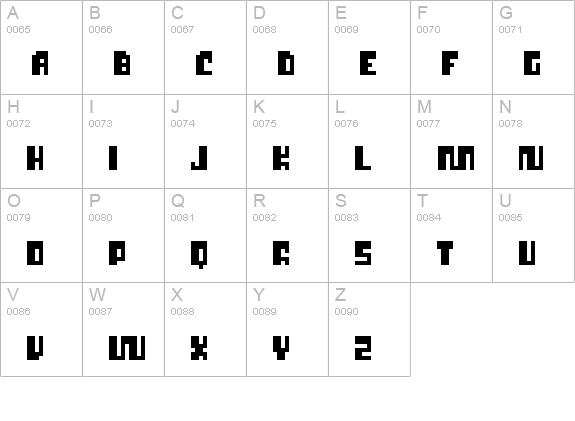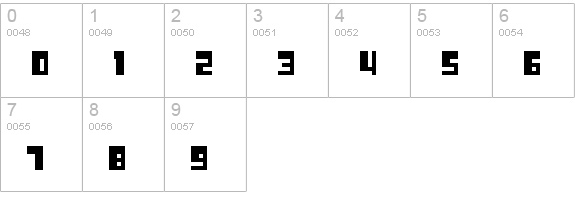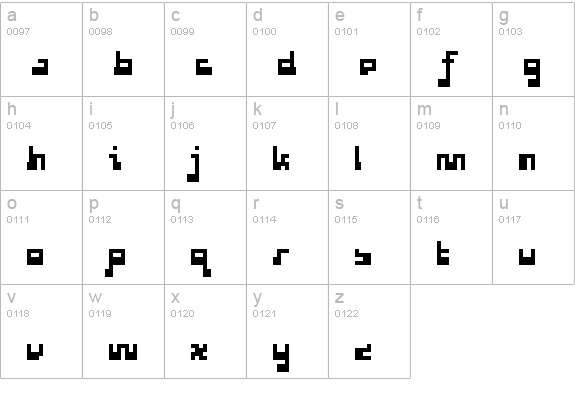
P22 Cusp Square Font Details
P22 Cusp Square is a stunning font that effortlessly combines modern aesthetics with a touch of retro charm. Its unique square-shaped letterforms exude a sense of boldness and sophistication, making it perfect for a wide range of design projects. This free font offers a versatile and eye-catching typographic solution for both digital and print media. Whether you're creating captivating logos, elegant headlines, or stylish posters, P22 Cusp Square will make your designs stand out from the crowd. With its clean lines and well-defined edges, this font conveys a sense of professionalism and precision, making it ideal for corporate branding and professional presentations. It also lends itself beautifully to editorial design, adding a touch of contemporary flair to magazine spreads and book covers. P22 Cusp Square is not only visually appealing but also highly legible, ensuring that your message gets across effortlessly. Its carefully crafted letterforms ensure optimal readability even at small sizes, making it suitable for body text in brochures, websites, and other informative materials. Best of all, this exceptional font is freely available to download at FontsMarket.com. Now you can add P22 Cusp Square to your font library without breaking the bank. Its accessibility and versatility make it a must-have for designers, students, and anyone looking to elevate their creative projects. So why wait? Discover the incredible potential of P22 Cusp Square and unleash your creativity today. Download this remarkable font for free at FontsMarket.com and let your designs speak volumes with its unique and captivating presence.